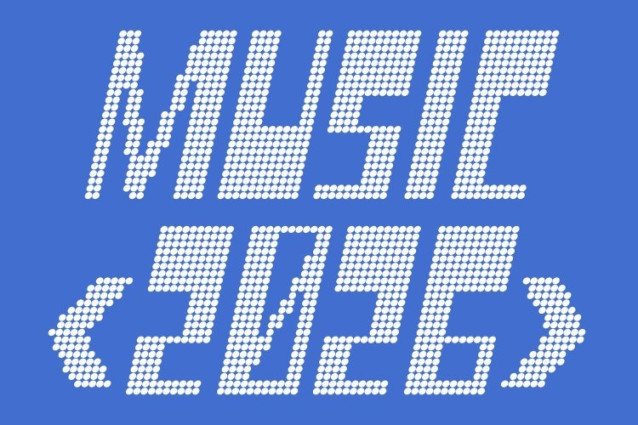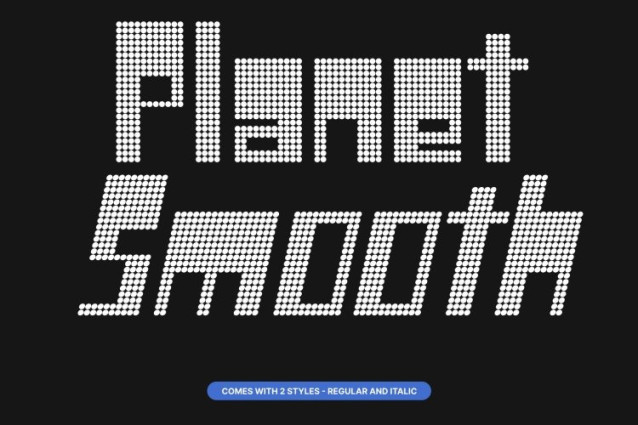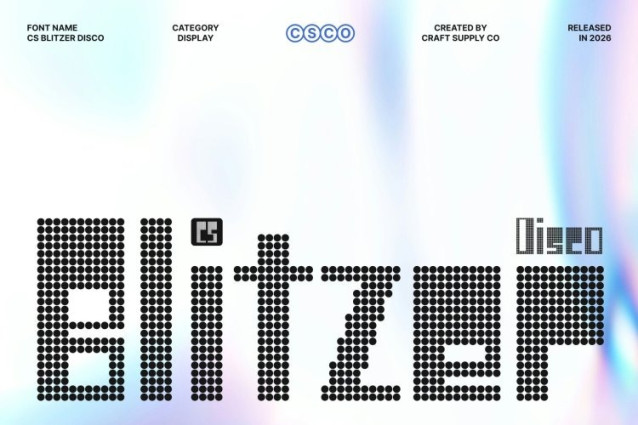
CS Blitzer Disco Font
CS Blitzer Disco Font This is a stylish experimental sans serif font that pushes typographic boundaries through brutalist structure infused with disco-era futurism. Featuring condensed proportions and distinctive reverse contrast, it challenges traditional form while maintaining a confident, cohesive rhythm. The result is a bold, modern display font with energetic movement and unmistakable visual attitude.
Unconventional Geometry with Retro-Futuristic Character
Built on geometric precision and intentional distortion, this font reflects the raw architectural essence of brutalism enhanced by the vibrant pulse of late 70s and early 80s design. Its reverse contrast introduces visual tension and groove, creating letterforms that feel industrial, futuristic, and rhythmically expressive turning every word into a striking statement.
Perfect for Editorials, Posters, and High-Energy Visuals
This font thrives in editorial layouts, futuristic posters, experimental branding, and contemporary graphic projects. Its sharp edges, condensed form, and dynamic contrast demand attention, making headlines and titles feel powerful, rhythmic, and visually charged perfect for designs that want to feel bold and unforgettable.
A Typeface for Visionary and Fearless Designers
More than just a font, this is a typographic experiment that celebrates structure, creativity, and movement. Ideal for designers who dare to break conventions, it merges brutalist aesthetics with disco-era energy to create work that feels innovative, confident, and forward-thinking with a bold sense of rhythm and style.